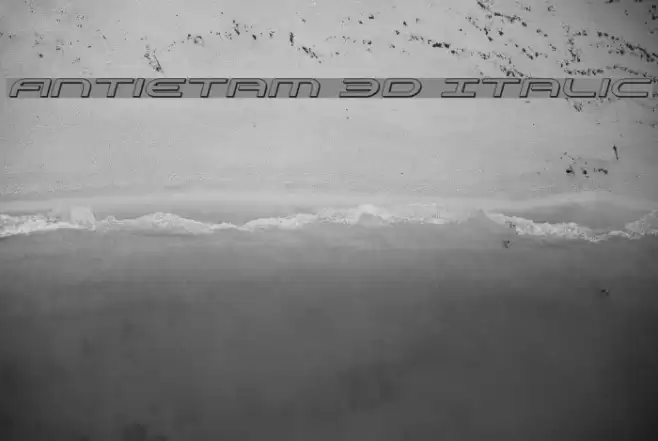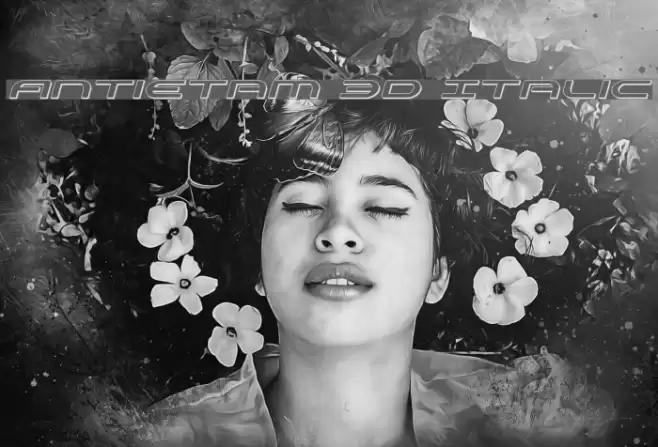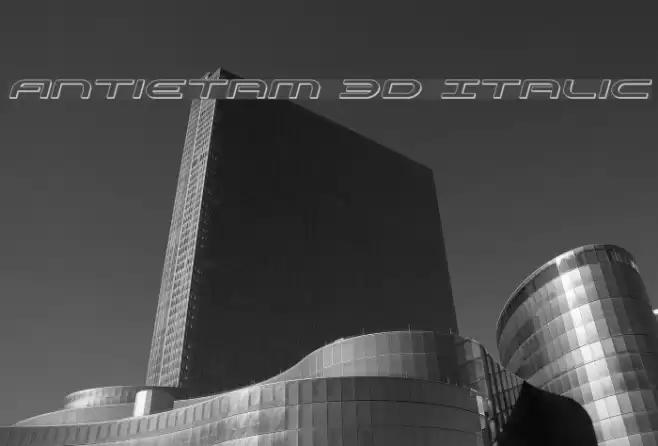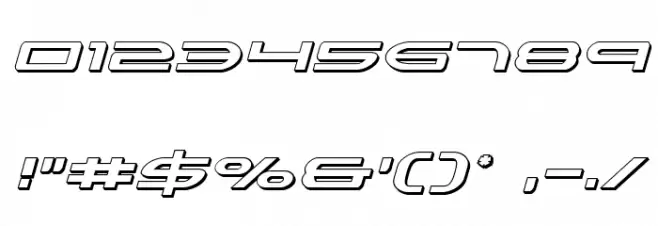
Antietam 3D Italic Font
Antietam 3D Italic Description
This font features a distinct 3D effect with an italicized slant, giving it a dynamic and futuristic appearance. The characters are outlined, creating a hollow effect that adds depth and dimension. The uppercase and lowercase letters maintain a consistent style, with geometric shapes and sharp angles. The numbers and special characters follow the same design principles, ensuring uniformity across all glyphs. This font's unique style makes it stand out, suitable for creative and modern design projects.
A 3D italic font with outlined characters and a futuristic style from Uncategorized fonts.
- Proposed Projects: Ideal for sci-fi themed designs, video game titles, posters, and branding that requires a modern and edgy look.